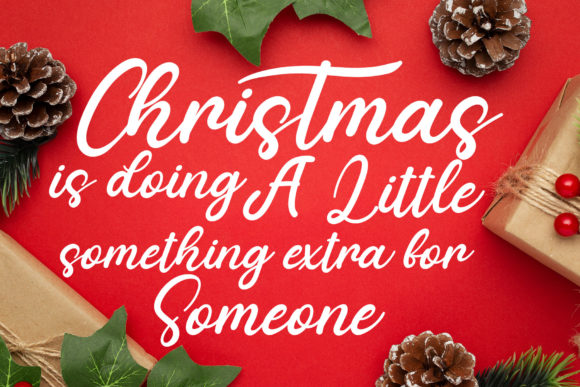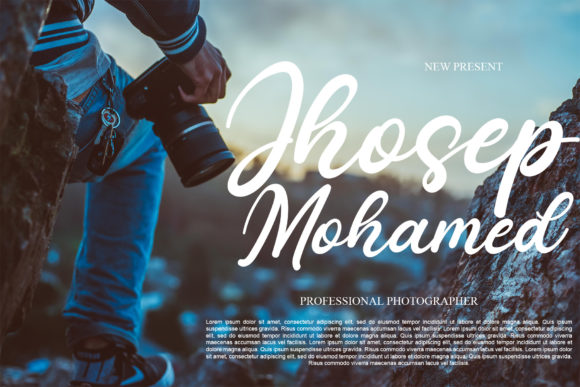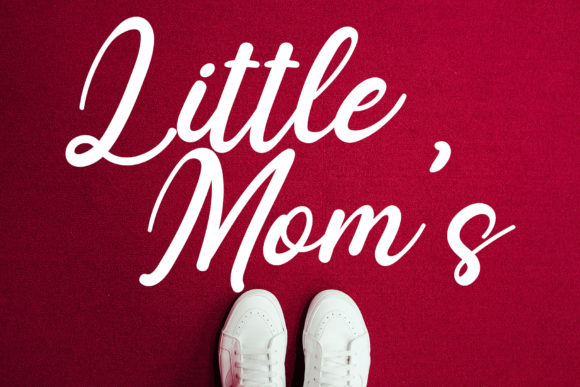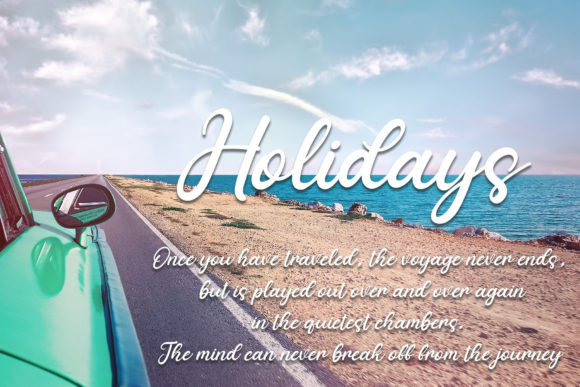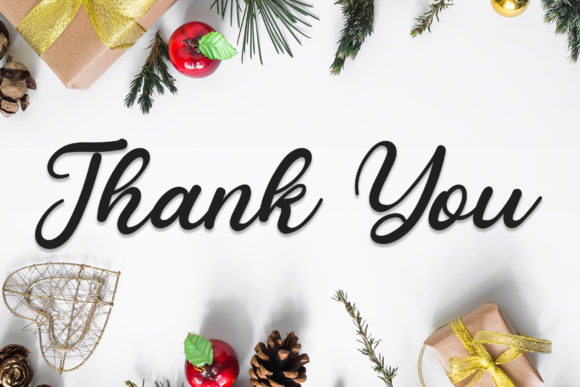
Unleashing the Elegance of Christly Signature Font
Have you ever sat at your desk, staring blankly at a blank page, desperately searching for the perfect font to bring your design to life? That’s exactly what happened to me last week, and I’m thrilled to share that I finally found the perfect solution – the Christly Signature Font.
This lovely and delicate script font is a masterclass in elegance and sophistication. Crafted specifically for designers seeking a beautiful and refreshing look, the Christly Signature Font is a game-changer. With its PUA encoding, you can effortlessly access all the glyphs and swashes, taking your designs to the next level. Whether you’re working on a wedding invitation, a luxury brand’s logo, or a romantic novel’s cover, the Christly Signature Font is sure to leave a lasting impression.
As a designer, you understand the importance of the right font in making your work stand out. That’s why I’m excited to share my discovery of the Christly Signature Font with you, and I’m confident that it will become a valuable addition to your design toolkit.
Christly Signature Font Key Features
- Unique Characteristics: Christly Signature Font features elegant, cursive script with subtle flourishes and connecting strokes, creating a sophisticated and personalized look.
Designer Review: Christly Signature Font
I recently had the chance to work with the Christly Signature Font, and I wanted to share my honest thoughts on this script font.
- The Christly Signature Font has a beautiful, elegant feel to it. It’s perfect for creating a high-end, luxurious look in your designs.
- The font is highly legible, even at smaller font sizes. This makes it a great choice for body text or headings in long-form content.
- The font family includes a wide range of weights and styles, giving you plenty of options for customization and flexibility.
- The Christly Signature Font may not be the best choice for bold or dramatic headings. While it’s elegant, it can come across as a bit too refined or understated.
- The font may not be as versatile as some other script fonts. It’s best suited for traditional or classic designs, rather than modern or edgy styles.
Overall, I think the Christly Signature Font is a solid choice for designers who want to add a touch of elegance to their work. While it may have some limitations, its beauty and legibility make it a great option for a wide range of projects.
To get the most out of the Christly Signature Font, consider the following tips:
– Use it in combination with other elegant fonts for a sophisticated look.
– Experiment with different font sizes and styles to create visual interest.
– Use it for titles and headings to add a touch of elegance.
The Christly Signature Font is ideal for:
– Business cards and branding materials
– Event signage and marketing materials
– Digital products and online courses
Alternatives to Christly Signature Font
Great Vibes is a beautiful, elegant script font perfect for creating a luxurious and sophisticated look. It is ideal for wedding invitations, luxury brand logos, and high-end packaging design.
Great Vibes has a more refined and sophisticated feel compared to Christly Signature Font, which has a more casual and playful vibe. Great Vibes is also more versatile and can be used in a variety of contexts, from formal to informal.
Carolyna Pro is a modern script font that is perfect for creating a sleek and sophisticated look. It is ideal for branding, packaging, and editorial design.
Carolyna Pro has a more modern and edgy feel compared to Christly Signature Font, which has a more traditional and classic vibe. Carolyna Pro is also more versatile and can be used in a variety of contexts, from fashion to technology.